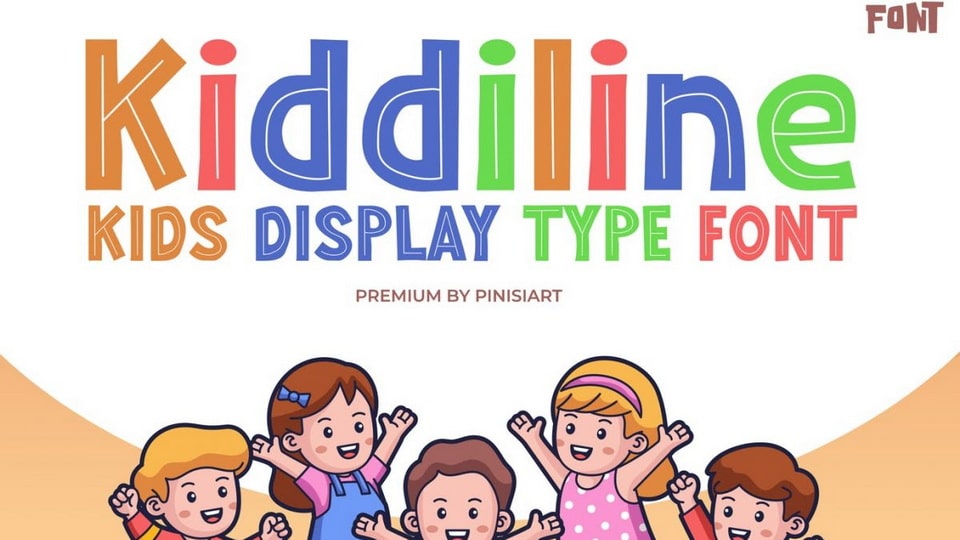
Download Kiddiline font, a kids typeface, cute and friendly, with a playful attitude. That’s what Kiddiline will bring to your current project. Looking cute with that inline inside the bold letters.